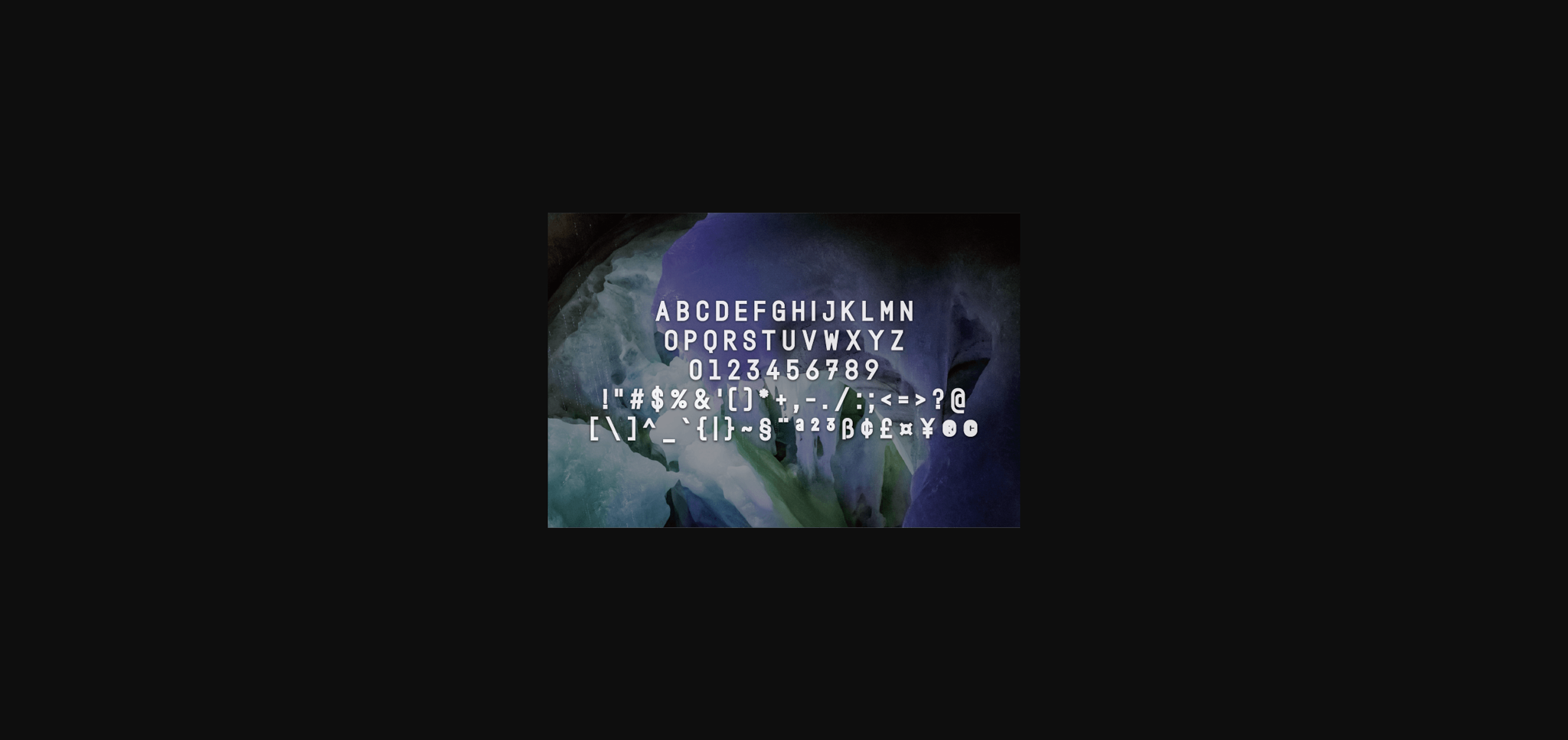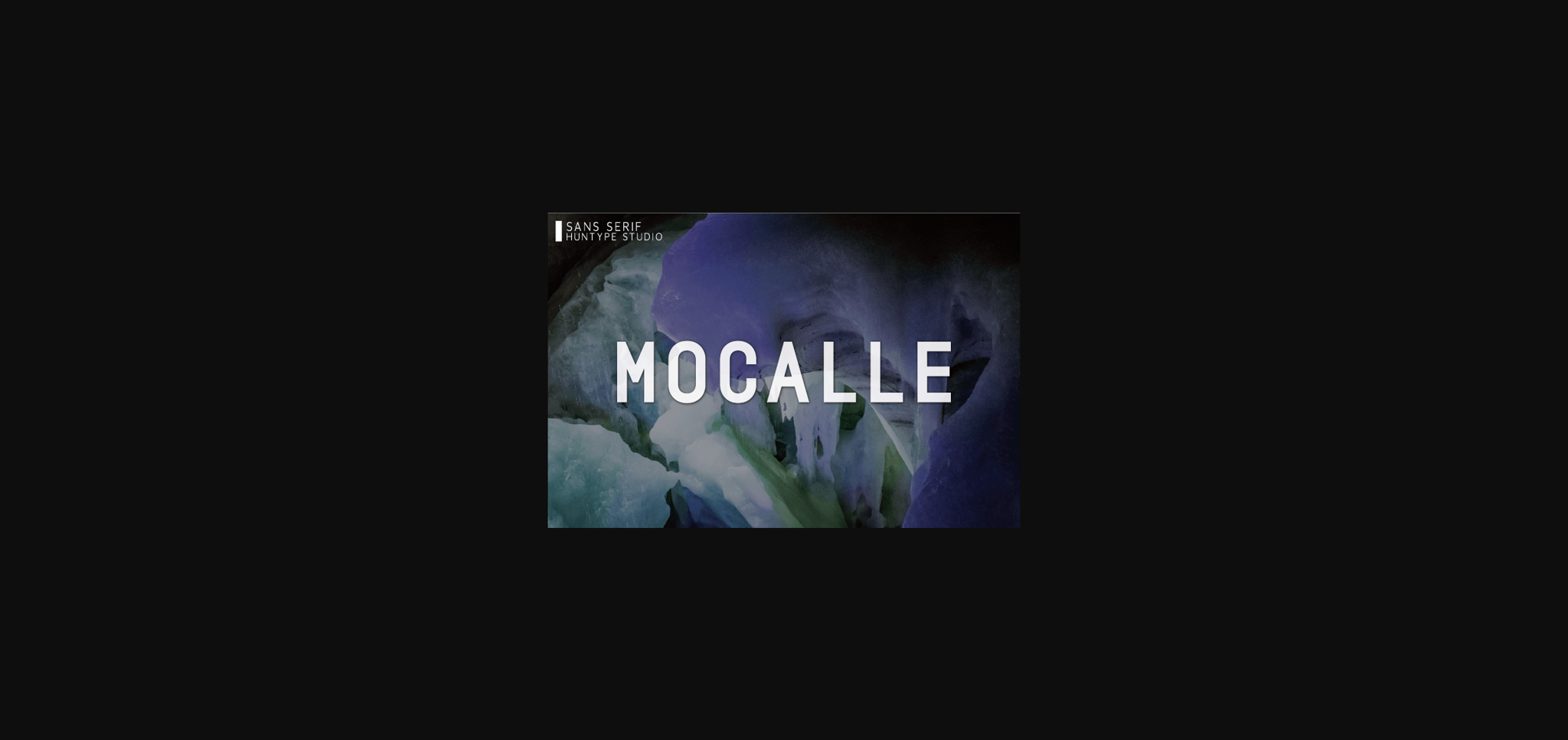
HomeSans Serif FontsMocalle Font Sans Serif Fonts Mocalle Font FacebookXPinterestWhatsApp 1 of 5 ... Mocalle Font Poster 2... Mocalle Font Poster 3... Mocalle Font Poster 4... Mocalle Font Poster 5... About Mocalle Font Mocalle is a simple and versatile sans serif font. With smooth and clean lines, this font works beautifully for logos, branding, and web headings. DOWNLOAD NOW People also explored Grace & Hope Font Wife Font Chevre Christmas Moment Font Makalu Font Brown Cowboy Font Rodemond Font Sameri Font Desick Font 372 0 TagsMocalleMocalle Font Previous articleRofesha FontNext articleLiterolf Font LEAVE A REPLY Cancel reply Comment: Please enter your comment! Name:* Please enter your name here Email:* You have entered an incorrect email address! Please enter your email address here Website: Save my name, email, and website in this browser for the next time I comment. Personal Use Free The Relapse Personal Use Free Read more about this font Alnair Star Personal Use Free Read more about this font Aliqa Personal Use Free Read more about this font Maxwell Personal Use Free Read more about this font BLOG Elegant Wedding Invitation Fonts – Handwritten & Script Fonts Elegant Wedding Invitation Fonts Your wedding day is one of the most important moments of your life, and every detail matters—including your invitation design. Our... Modern Sans-Serif Fonts That Brands Love in 2025 Best Fonts for T-Shirt Design – Top 2025 Picks Free vs Paid Fonts: Why Investing in Premium Fonts Is Worth It